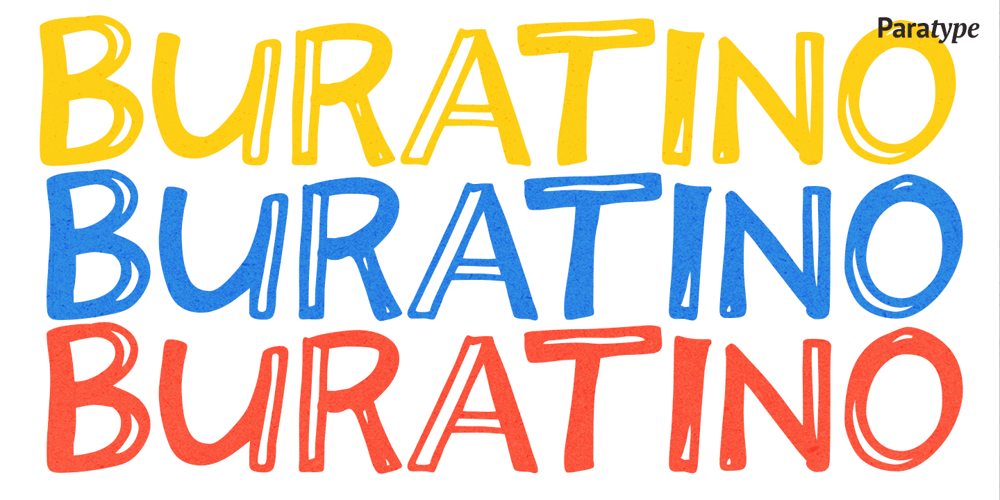
Buratino
Buratino font
Buratino Font Family was designed by Gennady Fridman and published by ParaType. Buratino contains 1 styles and family package options. Buratino font got its name from a title character of Russian fairy tale โ€” a clone of Pinocchio. Initially font was cut from a log and then scanned and converted into outline format. The font contains just upper case characters. Can be used in advertising and display typography. Designer โ€” Gennady Fridman. Released by ParaType in 2009.